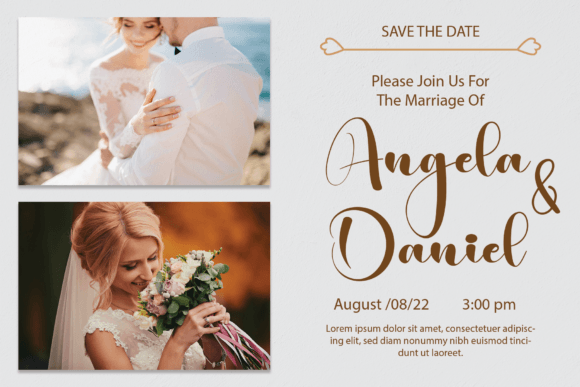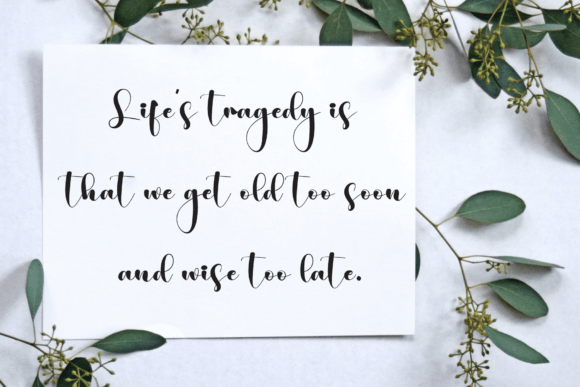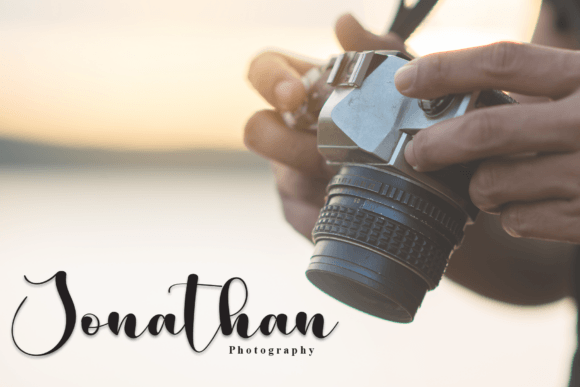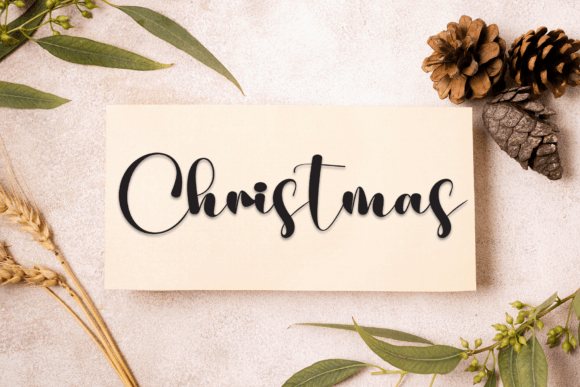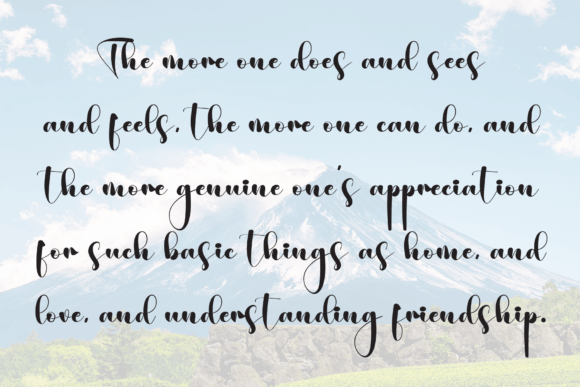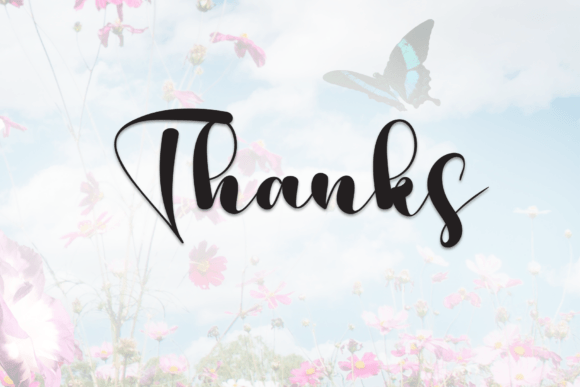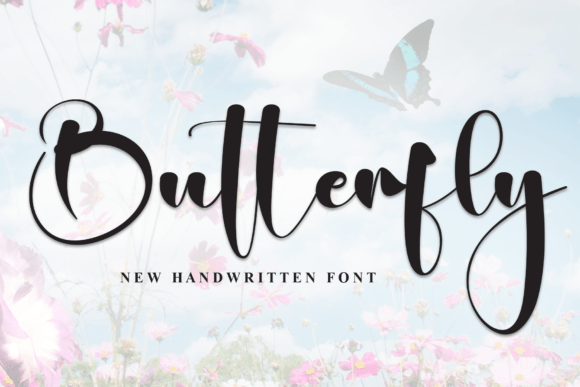
Introducing the Butterfly Font: A Delicate Script Font for Elegant Designs
Are you looking for a font that can add a touch of elegance and class to your designs? Look no further than the Butterfly Font, a lovely and delicate script font that is sure to refresh and revitalize your creative projects. In this article, we’ll take a closer look at the Butterfly Font, its features, and how it can be used to elevate your designs.
What is the Butterfly Font?
The Butterfly Font is a beautiful script font that is characterized by its delicate and flowing lines. This font was particularly crafted for designers, crafters, and artists who need a elegant and refreshing look to their designs. Whether you’re working on a branding project, a wedding invitation, or a digital graphic, the Butterfly Font is sure to add a touch of sophistication and style.
Features of the Butterfly Font
The Butterfly Font has several features that make it a standout choice for designers. Some of its key features include:
- Delicate and flowing lines: The Butterfly Font features delicate and flowing lines that give it a elegant and refined look.
- Script style: The font is a script font, which means it has a fluid and connected look that is perfect for creating beautiful and elegant text.
- High-quality design: The Butterfly Font is designed with high-quality and precision, ensuring that it looks great in any size or resolution.
- Easy to read: Despite its delicate lines, the Butterfly Font is easy to read and understand, making it perfect for body text and headings.
How to Use the Butterfly Font
The Butterfly Font is a versatile font that can be used in a variety of design projects. Here are some ideas for using the Butterfly Font:
- Wedding invitations and stationery: The Butterfly Font is perfect for creating beautiful and elegant wedding invitations, stationery, and other wedding-related designs.
- Branding and logos: The font can be used to create elegant and sophisticated logos and branding materials for businesses and organizations.
- Digital graphics: The Butterfly Font can be used to create stunning digital graphics, such as social media graphics, blog headers, and more.
- Crafting and DIY projects: The font can be used for crafting and DIY projects, such as making cards, gift tags, and other handmade items.
Tips for Using the Butterfly Font
Here are some tips for using the Butterfly Font:
- Use it sparingly: The Butterfly Font is a delicate font, so it’s best to use it sparingly to avoid overwhelming the design.
- Pair it with a sans-serif font: Pairing the Butterfly Font with a sans-serif font can create a beautiful contrast and add visual interest to the design.
- Experiment with colors: The Butterfly Font looks great in a variety of colors, so don’t be afraid to experiment and find the perfect color scheme for your design.
In conclusion, the Butterfly Font is a beautiful and delicate script font that is perfect for designers, crafters, and artists who need a elegant and refreshing look to their designs. With its delicate lines, script style, and high-quality design, the Butterfly Font is sure to add a touch of sophistication and style to any design project. Whether you’re working on a wedding invitation, a branding project, or a digital graphic, the Butterfly Font is a great choice.